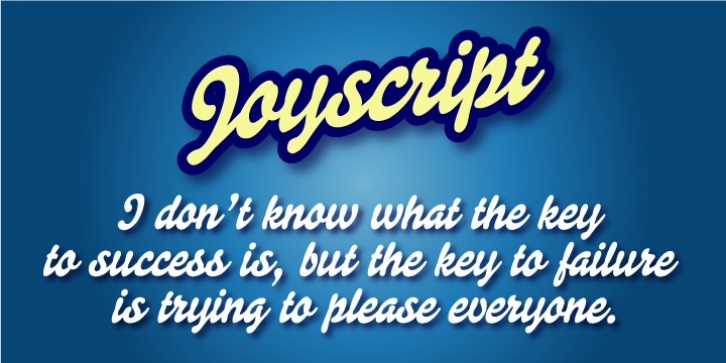
Joyscript was published by Jonahfonts. Joyscript contains 1 style.
Inspired by many hand-lettered European package designs.
This script face is suitable for logos, casual headlines and designs calling for attention.